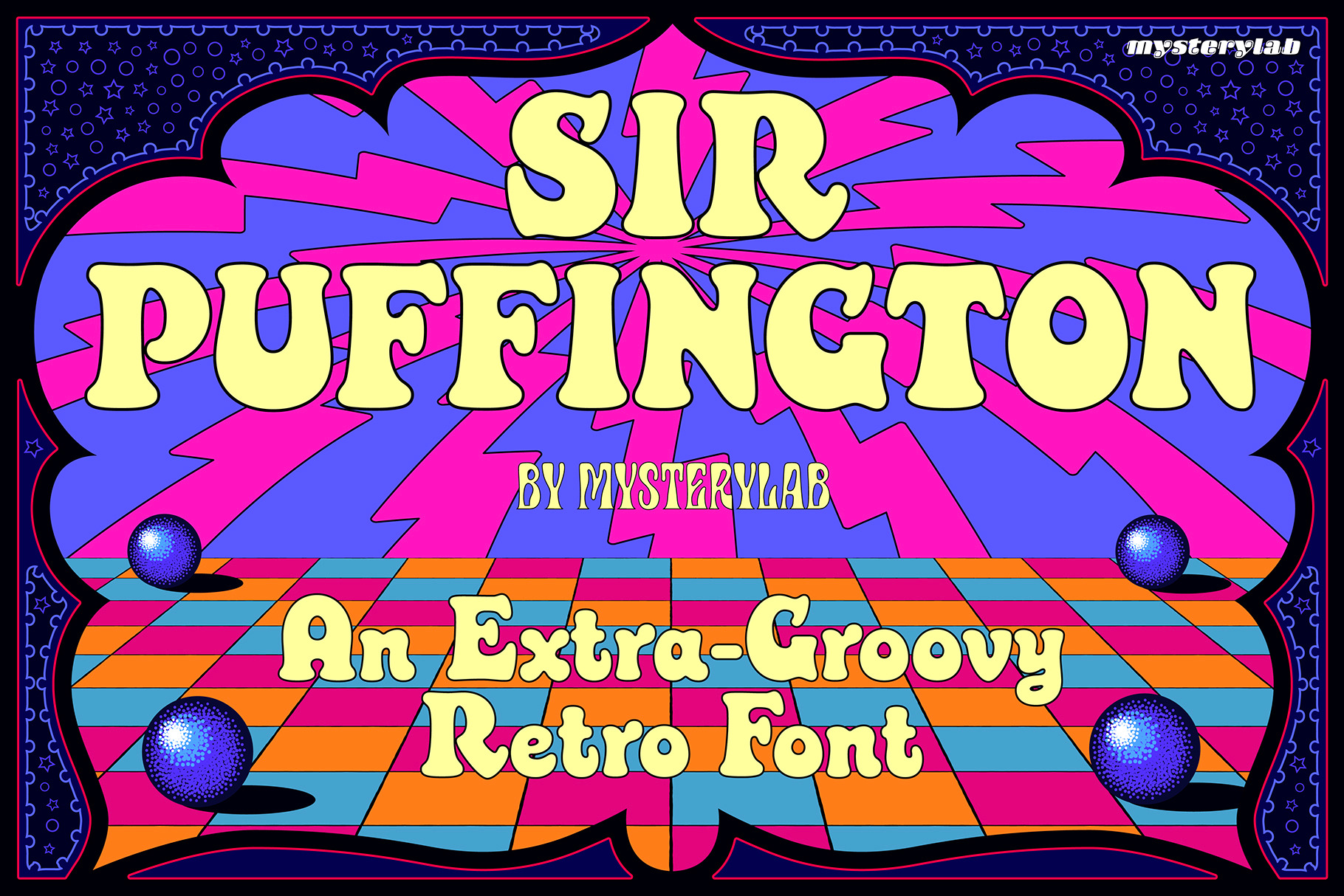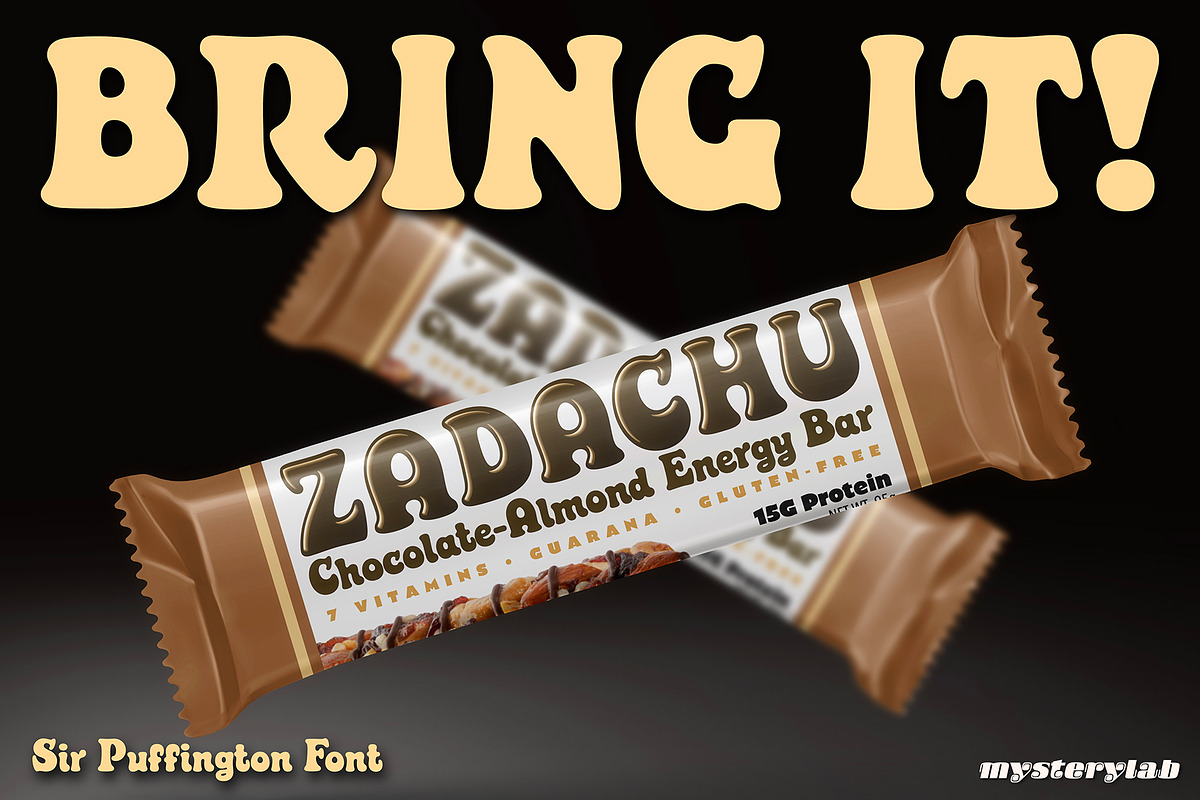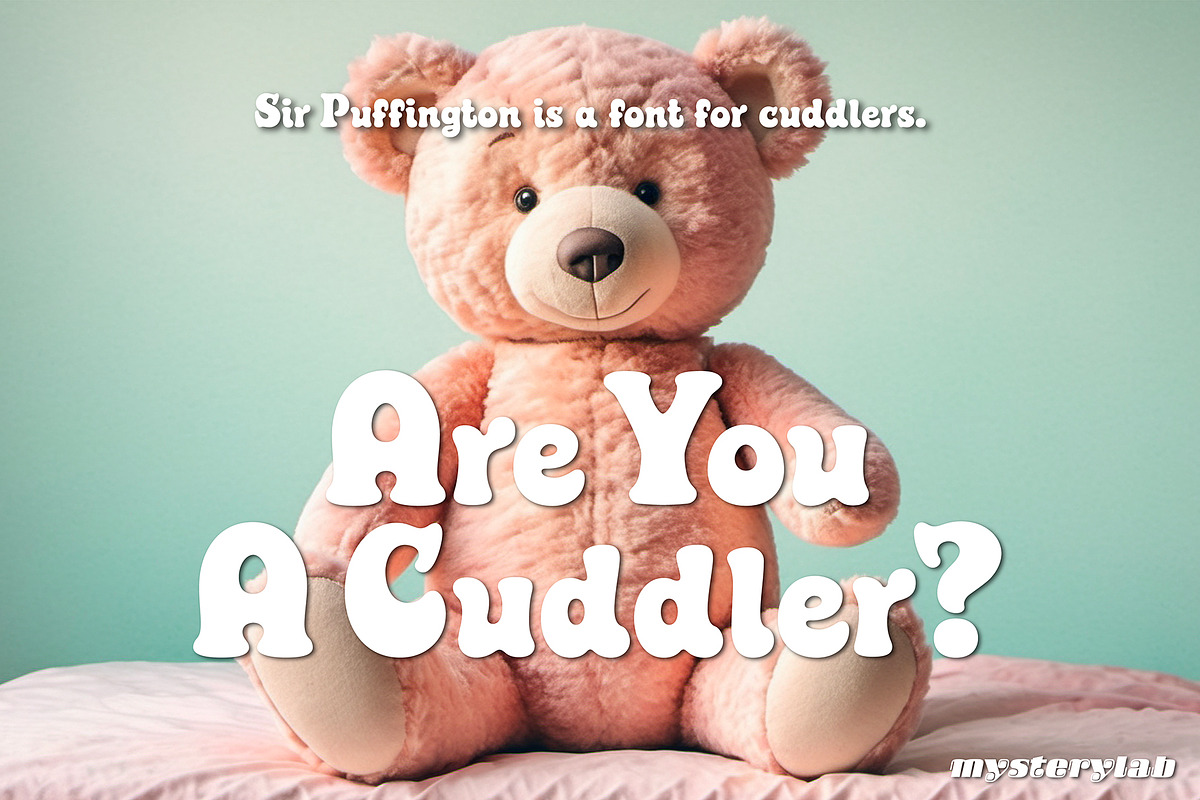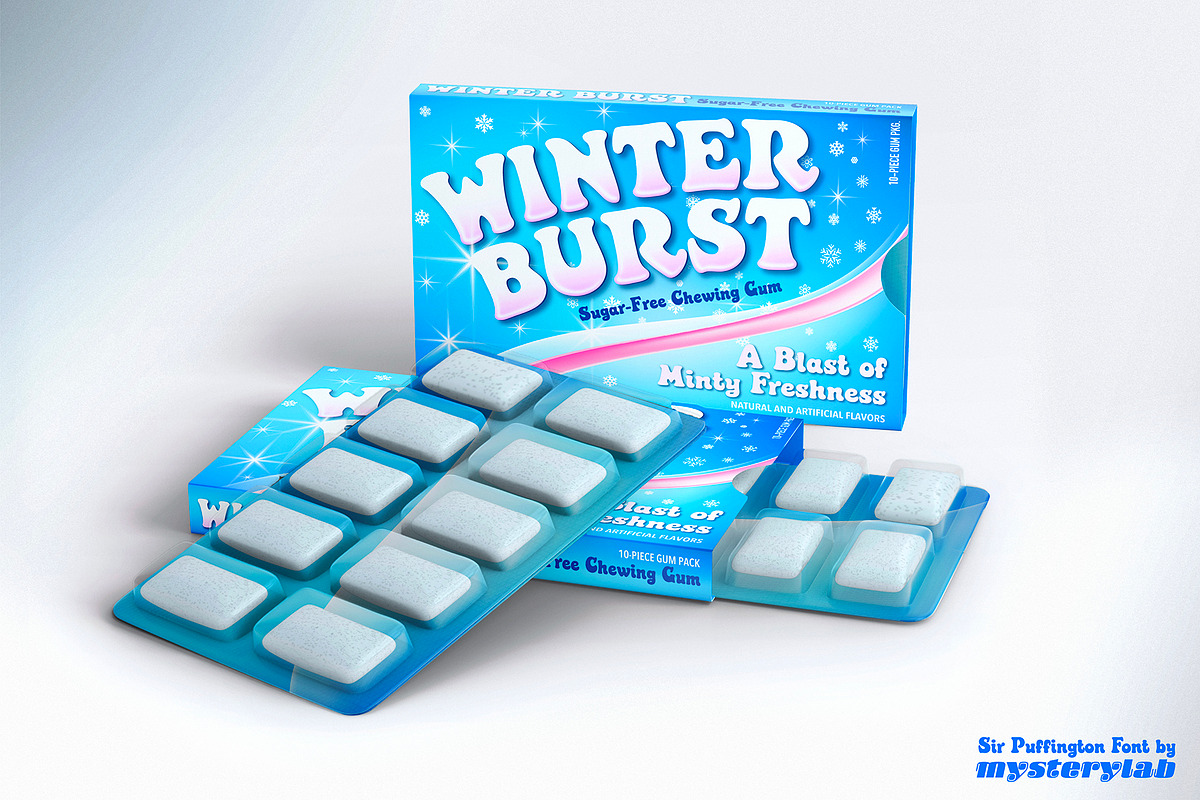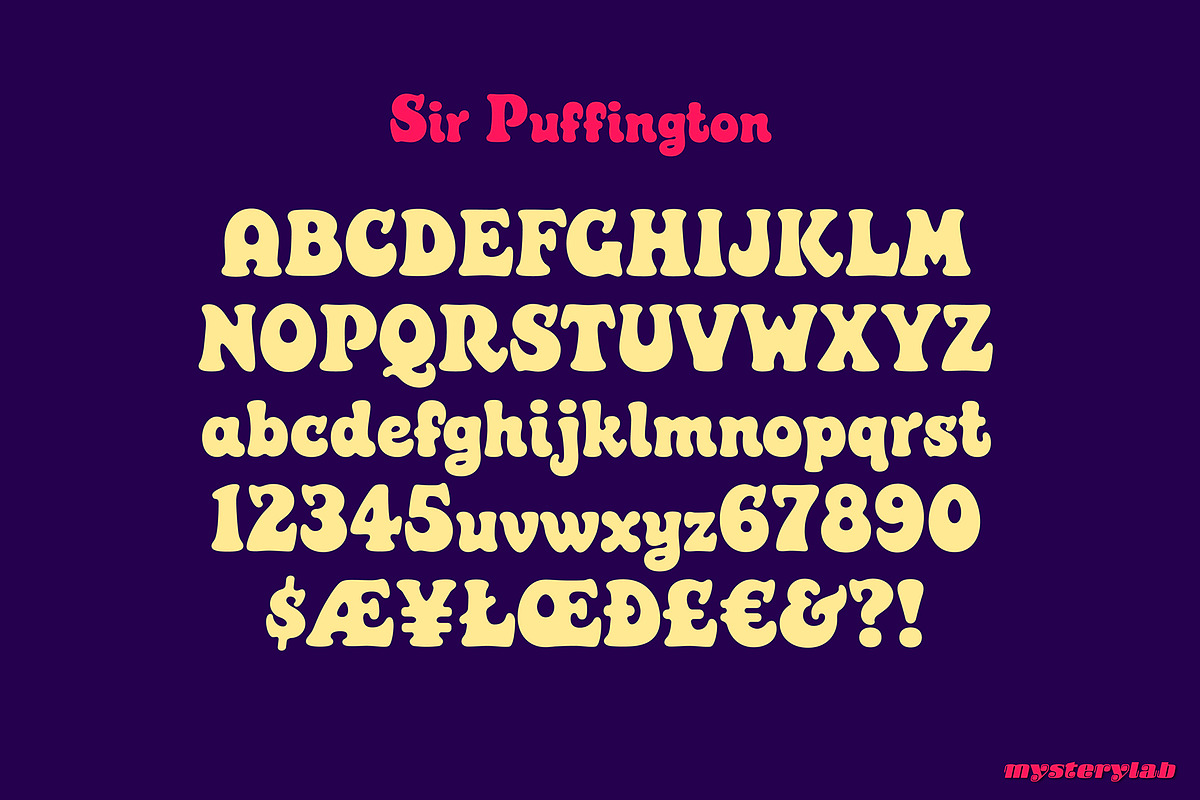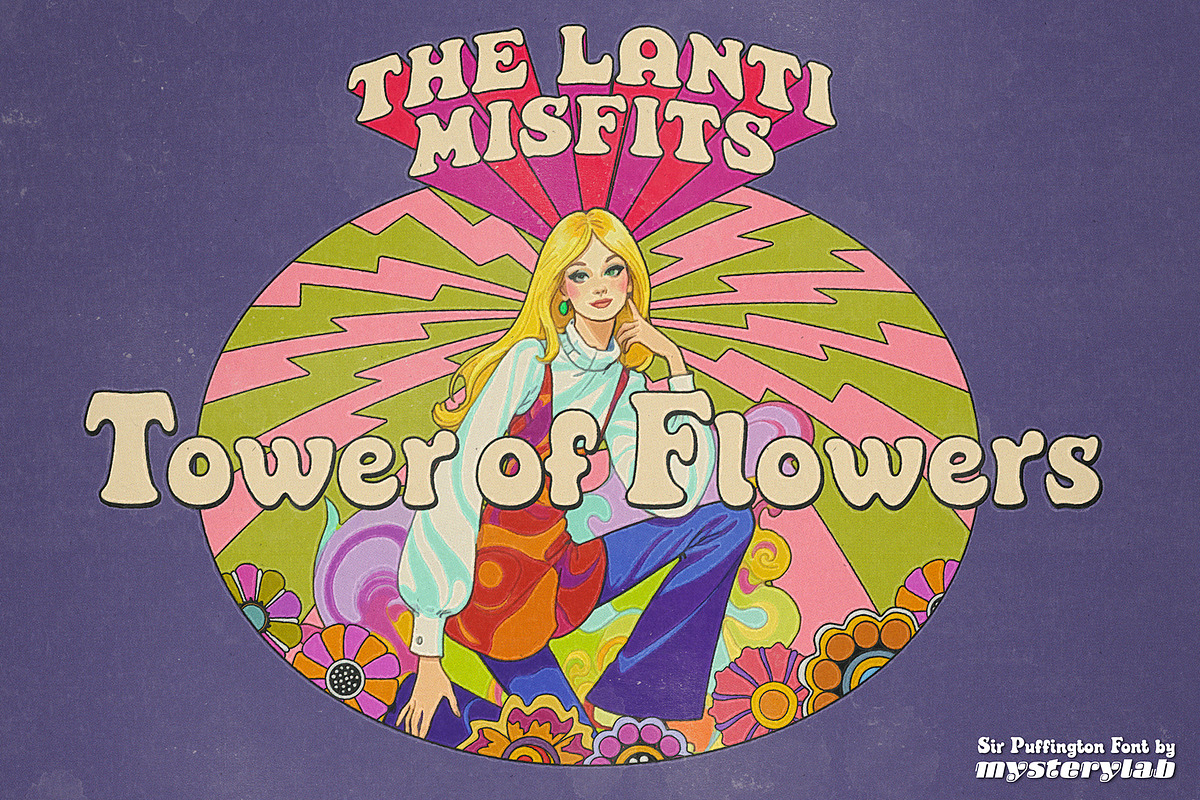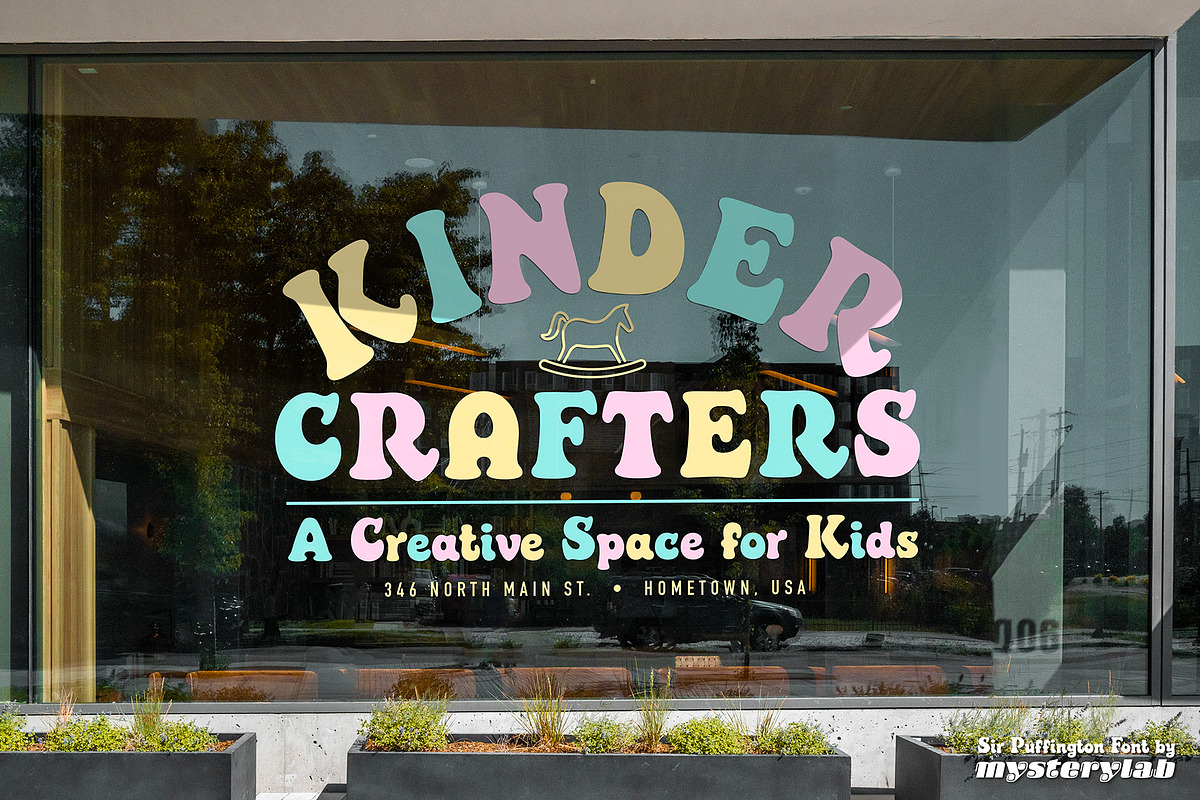
Sir Puffington Font
Sir Puffington is an all-purpose soft, cute, and plump font that’s great for children’s book titles, toy branding, pet products, food & snack branding, as well as nostalgic retro 1970s pop psychedelia, and much more. Anything that gives people the warm fuzzies will get a fun level-up by being set in Sir Puffington. Bold and Bold Italic are included in this package.